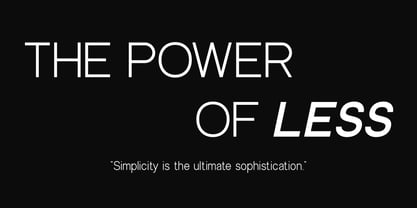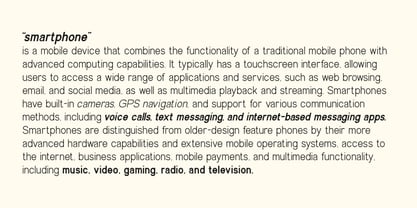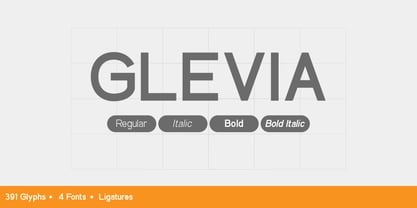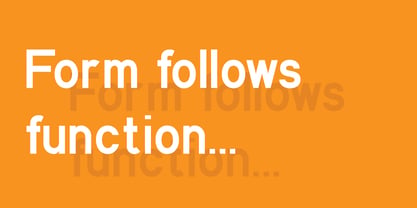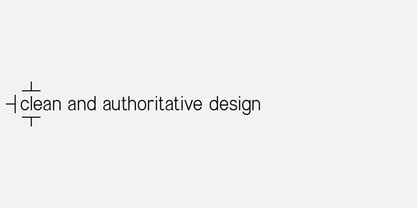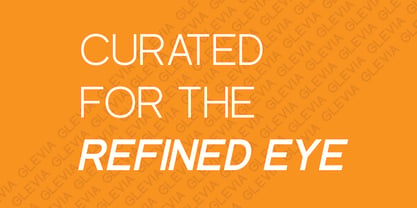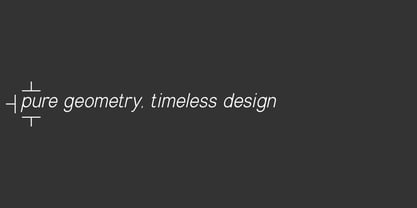
Glevia
by Pictranoosa
Elevate your designs with Glevia, a refined, modern sans-serif typeface designed for unparalleled clarity and versatility. Glevia refines these classic principles with clean lines and precise geometry, creating a look that is both efficient and inviting. Glevia’s exceptional legibility makes it perfect for long-form reading in digital interfaces and print. Its clean, authoritative presence makes it equally well-suited for brand identities, sophisticated publications, packaging, editorial design, and advertising. From clean minimalist websites to complex industrial reports, Glevia is ready to be applied anywhere, bringing a polished, professional touch to your creative projects. Glevia was born from a desire to create a contemporary interpretation of a functional design classic. By stripping away the unnecessary and leaving only the essential, Glevia offers a familiar yet fresh perspective, refined for the needs of the digital age.